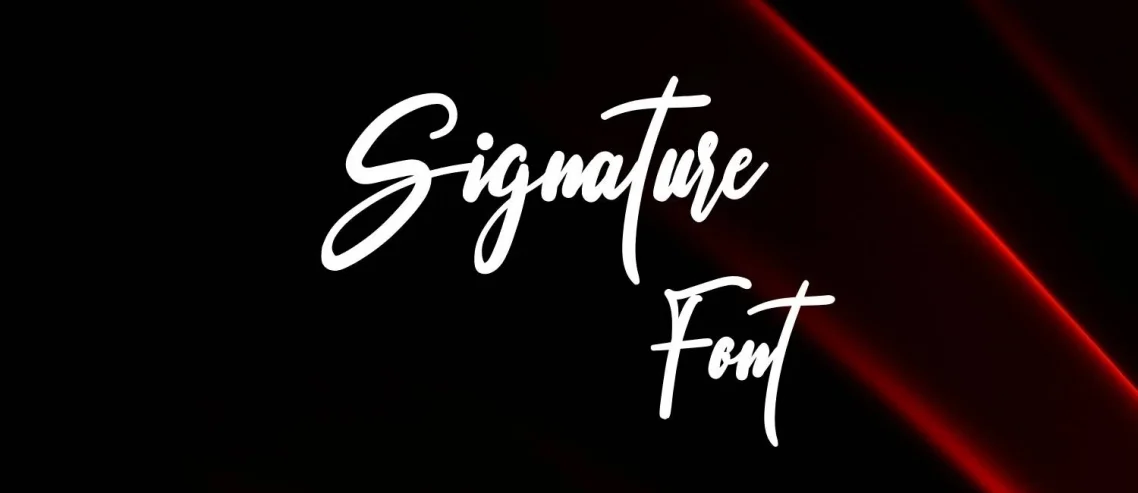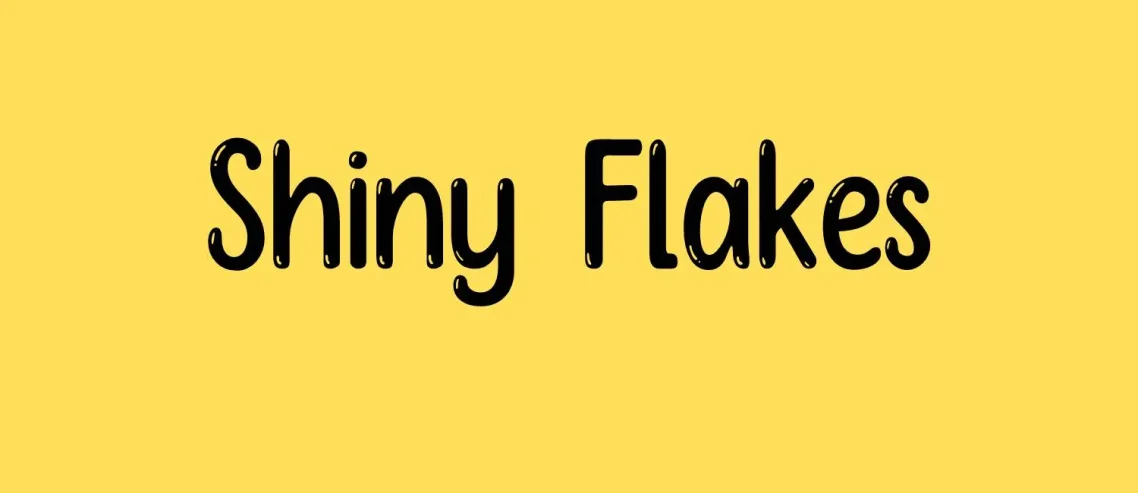
Street Fighter Font Free Download
The Street Fighter font is a unique typeface that belongs to the brush font family. Street Fighter is a game that was released by Capcom in 1987. The designer of this game is Takashi Nishiyama and Hiroshi Matsumoto. This typeface supports various languages and it is offered in Open-type and True-type formats. You can pair …
Transformers Movie Font Free Download
Transformers Movie Font is the typography used in Transformers movies. It is also used in some merchandise and video games based on the franchise. The font was created by Michael Bay, the director of the Transformers movies. This Font is a modified version of the Arial Black typeface. The letters have been widened and the …
Shiny Flakes Font Free Download
Shiny Flakes Font has unique features and it was designed by a well-known designer Niskala Huruf. You can utilize this font for elegant headlines and titles of your project. This typeface belongs to a fancy font family. You can utilize this font in any kind of operating system and editing software. It is very similar …
Signature Font Free Download
Signature Font has gorgeous and stylish characters suitable for any design project. This fabulous typeface lies under the Script font family. This stunning typeface is constructed by a well-known foundry Eddy Goodboy. You can blend this typeface with human sans font to boost your project. This pair never fails to give you success and glory. …
Blastrick Font Free Download
Blastrick Font is a decorative font with a unique design. It was created by Blastrick Inc, a company specializing in fonts and graphic design. The font is available in two weights, light and bold. It includes support for Latin, Cyrillic, and Greek characters. This Font is a perfect choice for anyone looking for a unique …
Leixo Font Free Download
Leixo Font is a sans-serif typeface created by Swiss designer Hannes von Döhren in 2013. The design is based on the grotesque genre of serifless fonts, which first emerged in the early nineteenth century. If you want to see the similarities of this typeface and want to pair them then brushed font is the best …